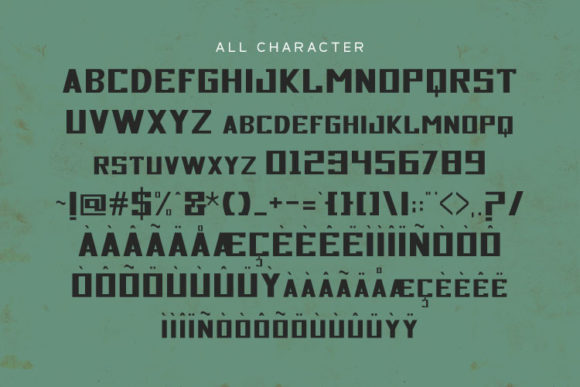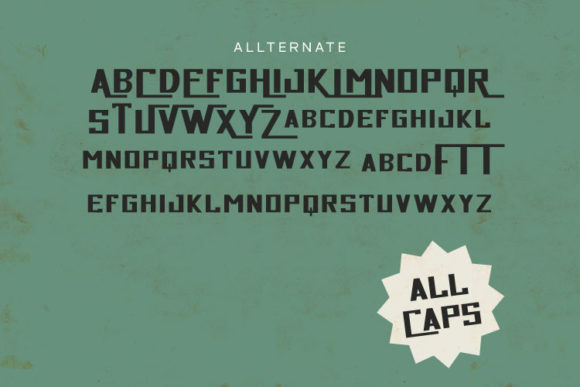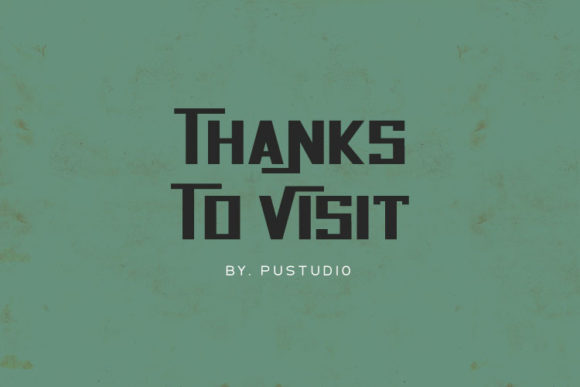
The Designer’s Delight: Craftypan Font
I’ll never forget the time I was working on a vintage-themed craft project, pouring my heart and soul into it, but struggling to find the perfect font to match the aesthetic. The design just didn’t feel cohesive, and I couldn’t quite put my finger on what was missing. That’s when I stumbled upon Craftypan, an organic, vintage-styled display font that instantly elevated my creation. If you’re a designer, crafter, or creative hobbyist looking for a font that can add a touch of nostalgia and charm to your projects, you’re in luck! 🎉
An Honest Review of Craftypan
- ✨ Organic and vintage vibe: Craftypan has a unique, handmade feel that’s perfect for projects that require a touch of nostalgia.
- ✅ PUA encoded: This font is PUA encoded, making it easy to access all the glyphs and swashes.
- 💡 Versatile: Whether you’re working on a craft project, a branding campaign, or a social media graphic, Craftypan can adapt to any topic or style.
While Craftypan is an amazing font, there are a few things to keep in mind:
- ⚠️ Legibility at small sizes: Like many display fonts, Craftypan can be a bit tricky to read at small sizes. Make sure to use it at a large enough size to ensure legibility.
- 🤔 Some glyphs require manual adjustment: While the font is PUA encoded, some glyphs may require manual adjustment to get the perfect look.
The Story Behind Craftypan
Craftypan was designed with the creative hobbyist in mind. The font’s creator wanted to create a font that would be perfect for crafters, designers, and makers who need a font that can add a touch of nostalgia and charm to their projects. Inspired by vintage signs, labels, and packaging, Craftypan is the perfect blend of old and new.
Q: Is Craftypan suitable for body text?
A: While Craftypan is a beautiful font, it’s best suited for display text or headings. Due to its ornate and decorative nature, it may not be the best choice for body text.